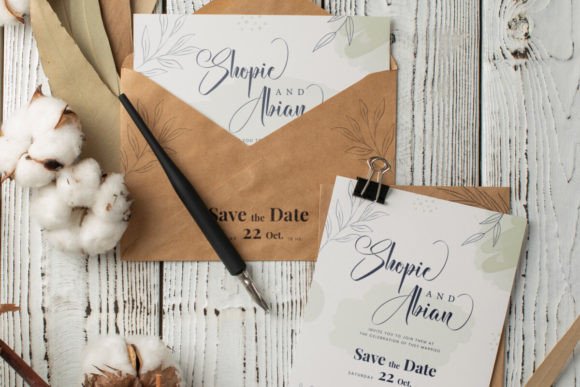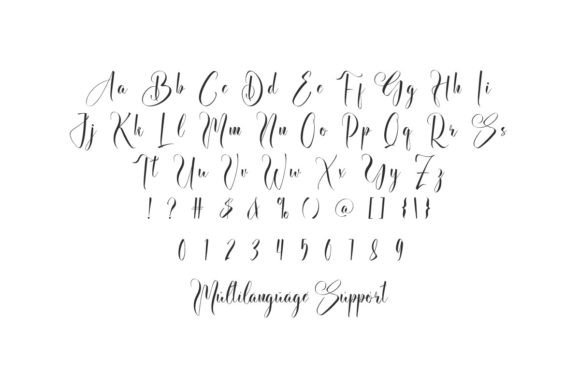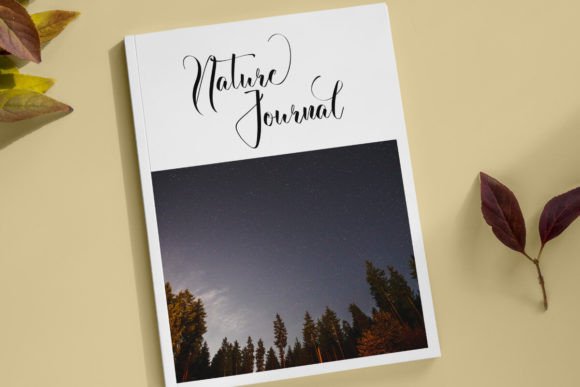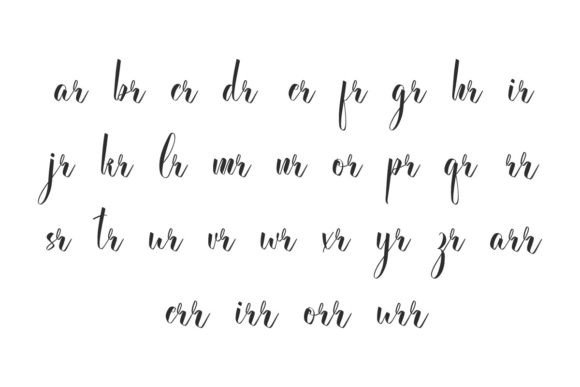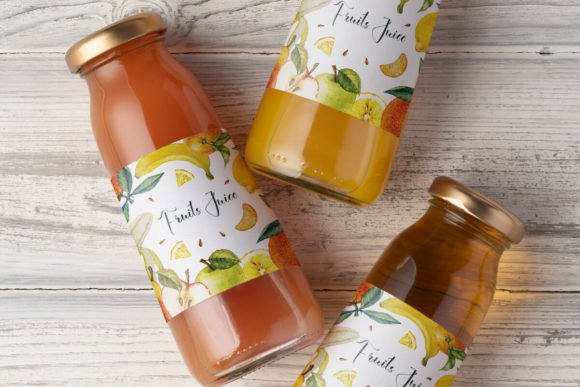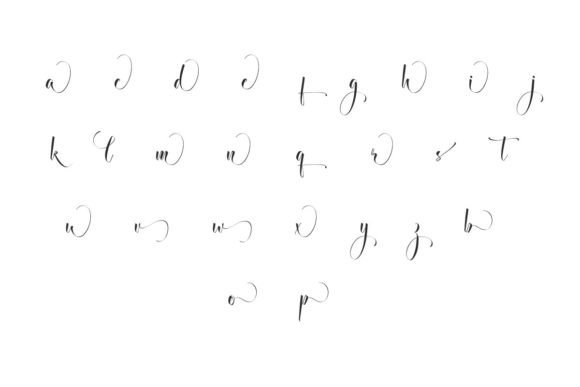
Introduction to Shirley Bianca Font
That’s where the Shirley Bianca Font comes in – a stunningly elegant calligraphy script font that’s sure to add a touch of sophistication to any design project. With its sleek and tall appearance, this font creates a clean and charming impression that will make your designs stand out from the crowd.
Key Features of Shirley Bianca Font
- High-quality design font ideal for creative projects
- Unique characteristics: elegant script, cursive style, and ornate details
Honest Review: Shirley Bianca Font
I recently stumbled upon the Shirley Bianca Font, and I must say it’s a fantastic addition to any designer’s arsenal. This high-quality font is perfect for any creative project, from wedding invitations to magazine layouts.
- What works well: ✨ The Shirley Bianca Font features a beautiful, elegant script that’s perfect for adding a touch of sophistication to your designs. The font is also highly customizable, making it easy to adjust the size, color, and style to fit your needs.
While the Shirley Bianca Font is an excellent choice for many projects, I do have a few minor complaints. ⚠️ The font can be a bit difficult to read at smaller sizes, and it may not be the best choice for body text. Additionally, the font is only available in a limited number of weights and styles, which may limit its versatility.
Overall, I’m impressed with the Shirley Bianca Font. It’s a high-quality design resource that’s perfect for adding a touch of elegance to your creative projects. Whether you’re working on a free download or a paid project, this font is sure to impress.
To get the most out of the Shirley Bianca Font, use it on a transparent background to create a clean and elegant design. You can also pair it with other fonts to create a unique and creative look.
The Shirley Bianca Font is commonly used for wedding invitations, birthday cards, and other creative projects that require a touch of elegance and sophistication. Its high-quality design and transparent background make it perfect for use in a variety of design applications.